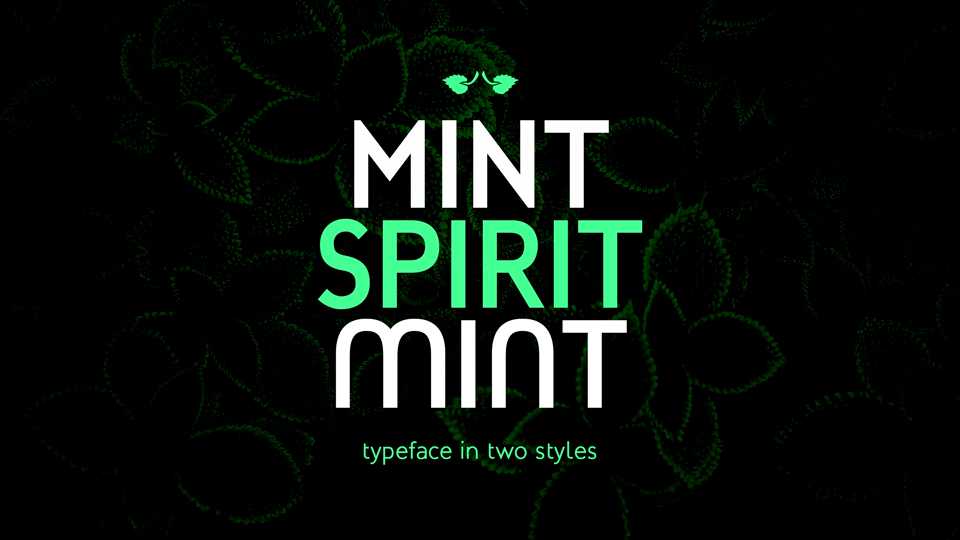
Download Mint Spirit typeface, a modern sans serif font family in two styles, inspired by contemporary typefaces to keep a good readability to the display, but also, to allow a good impression.
Designer: Arkandis Digital Foundry